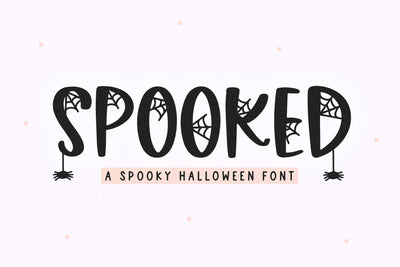
Spooked - Halloween Spider Web Font
Spooked is a fun Halloween font with spider web details.
This font is perfect for craft projects, svg files, shirts, mugs, invitations, stickers and more!